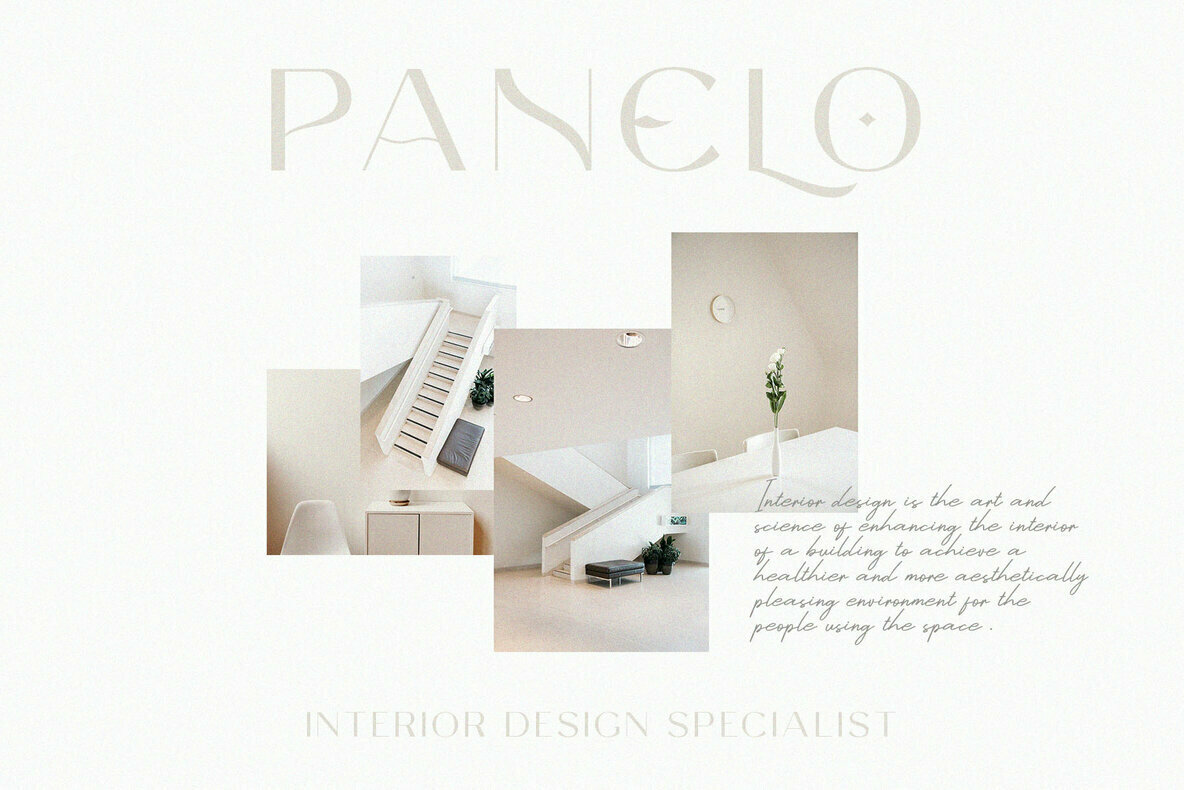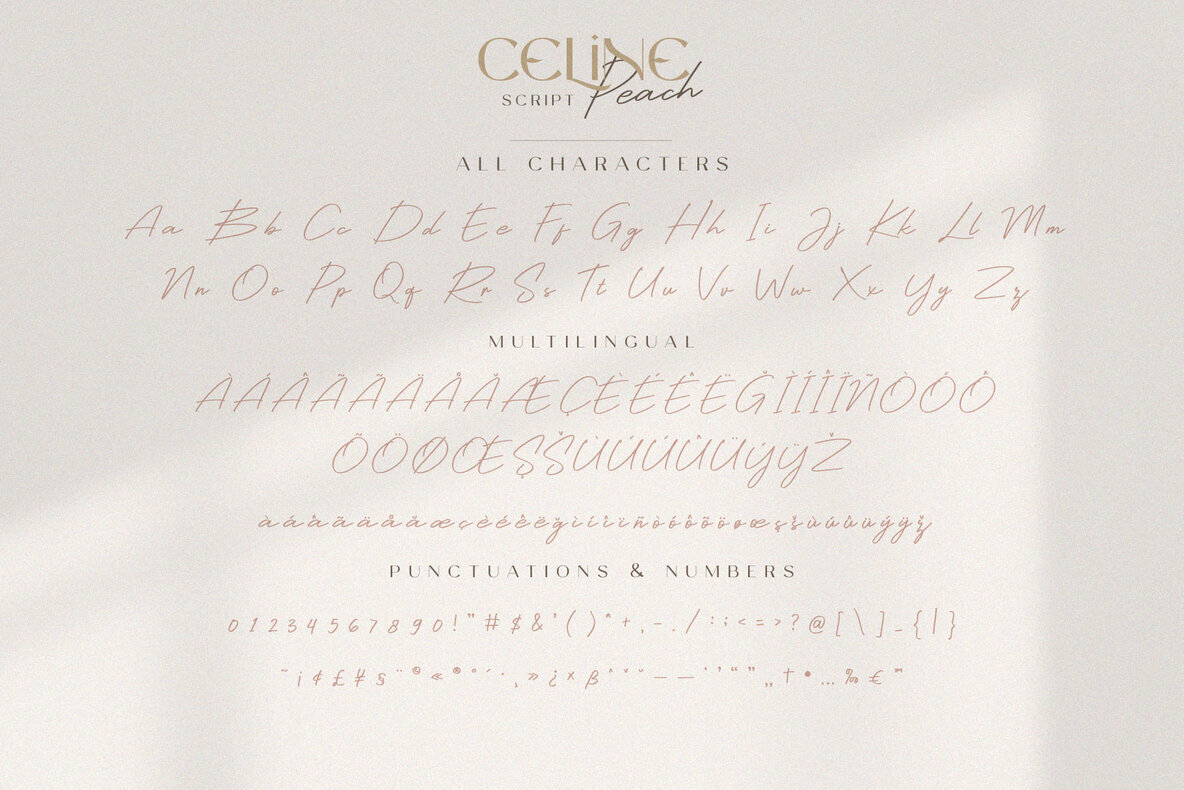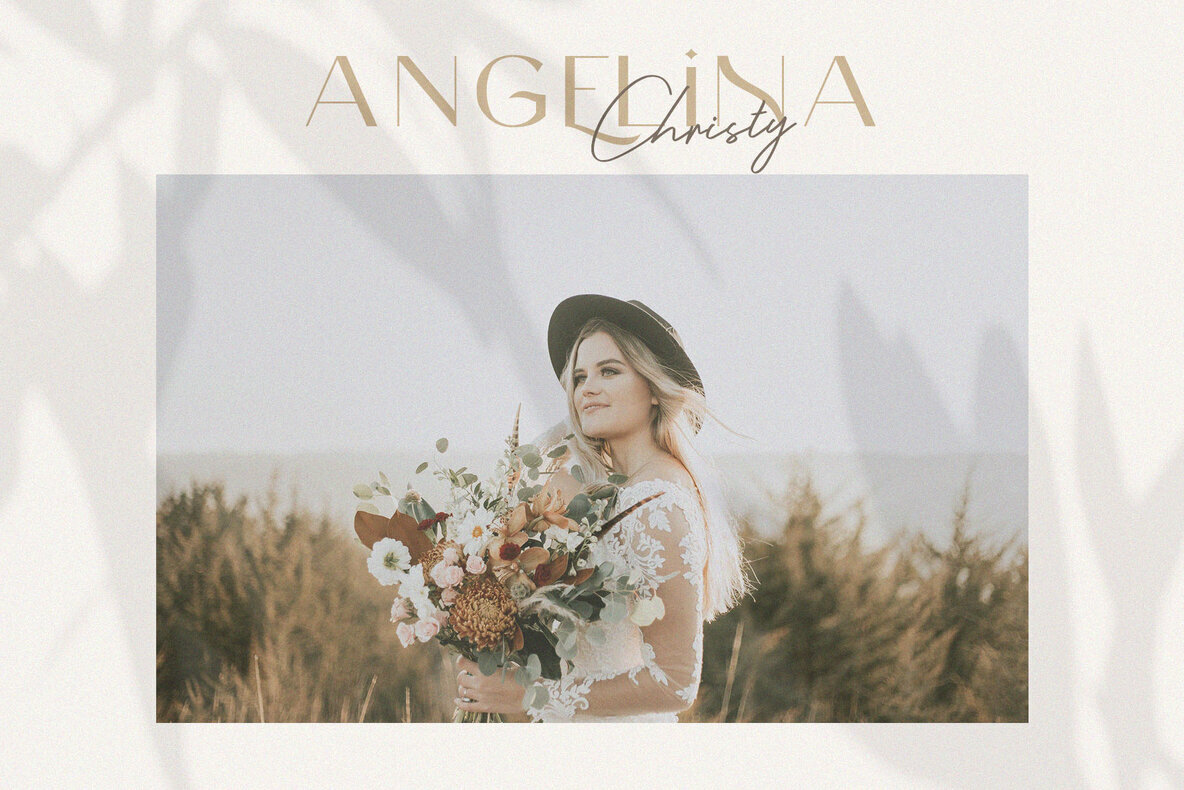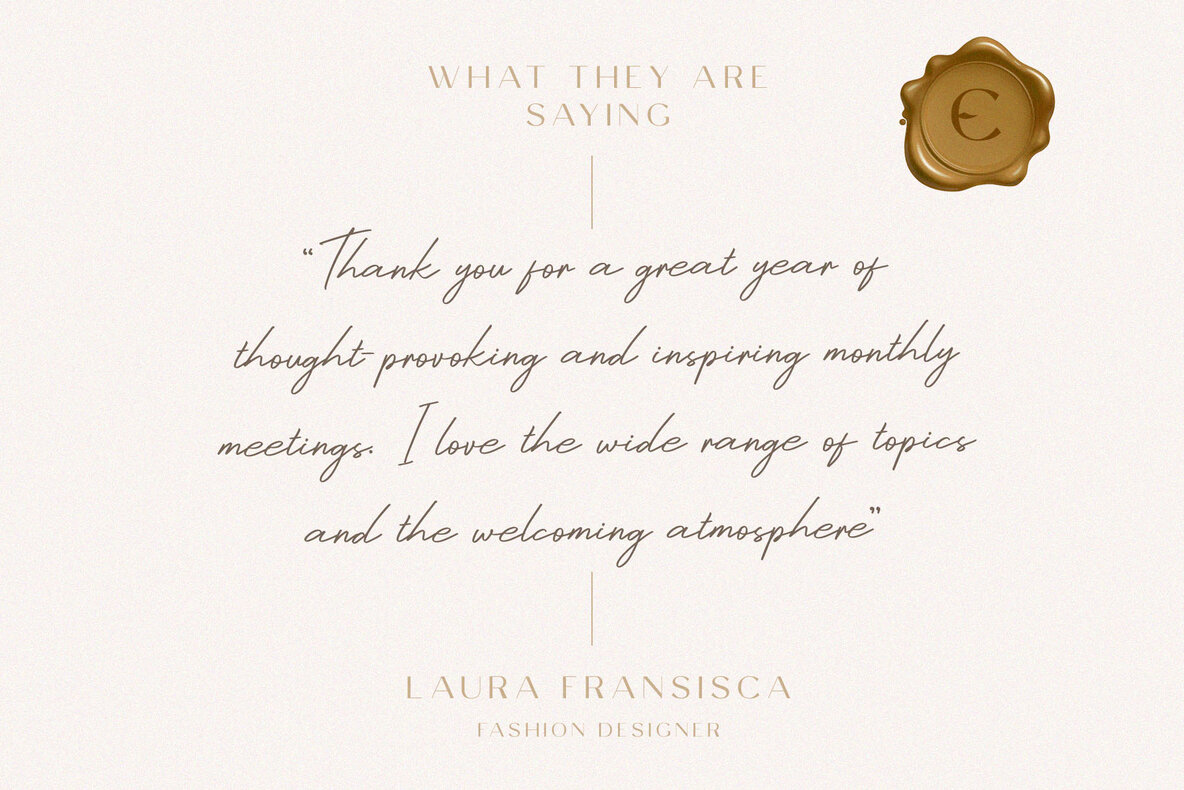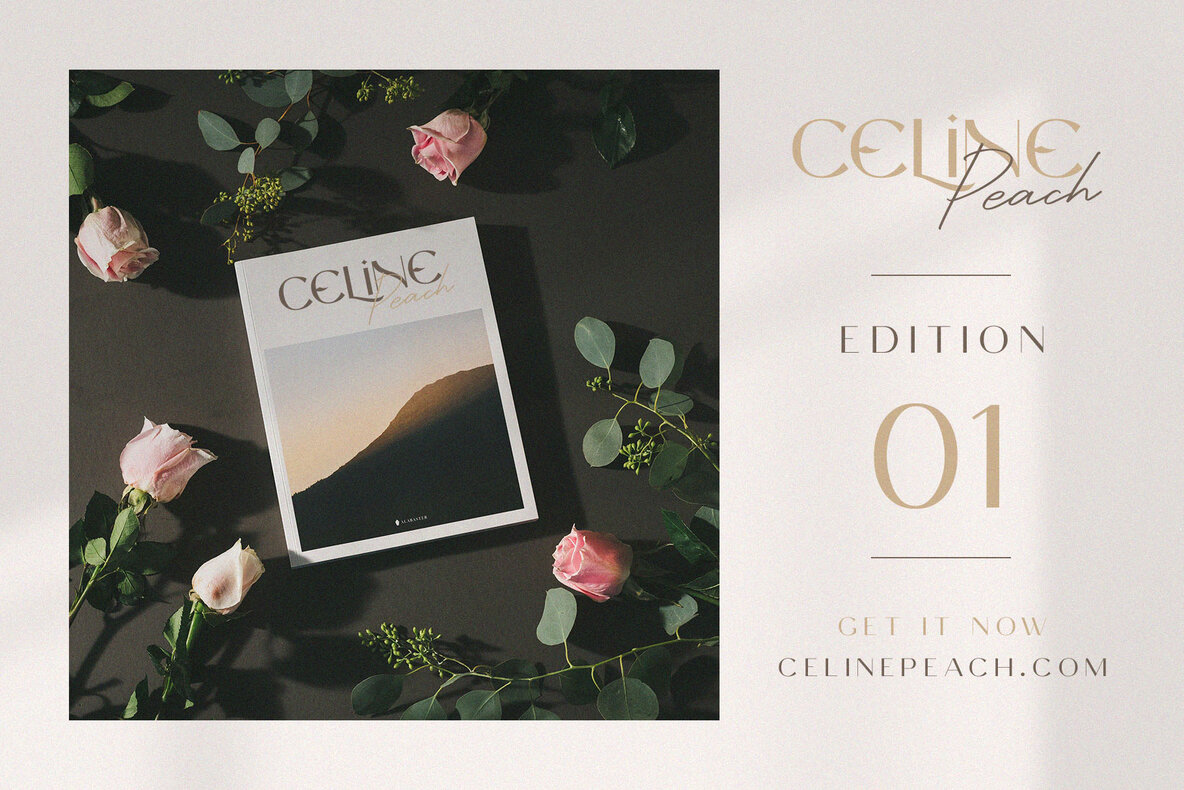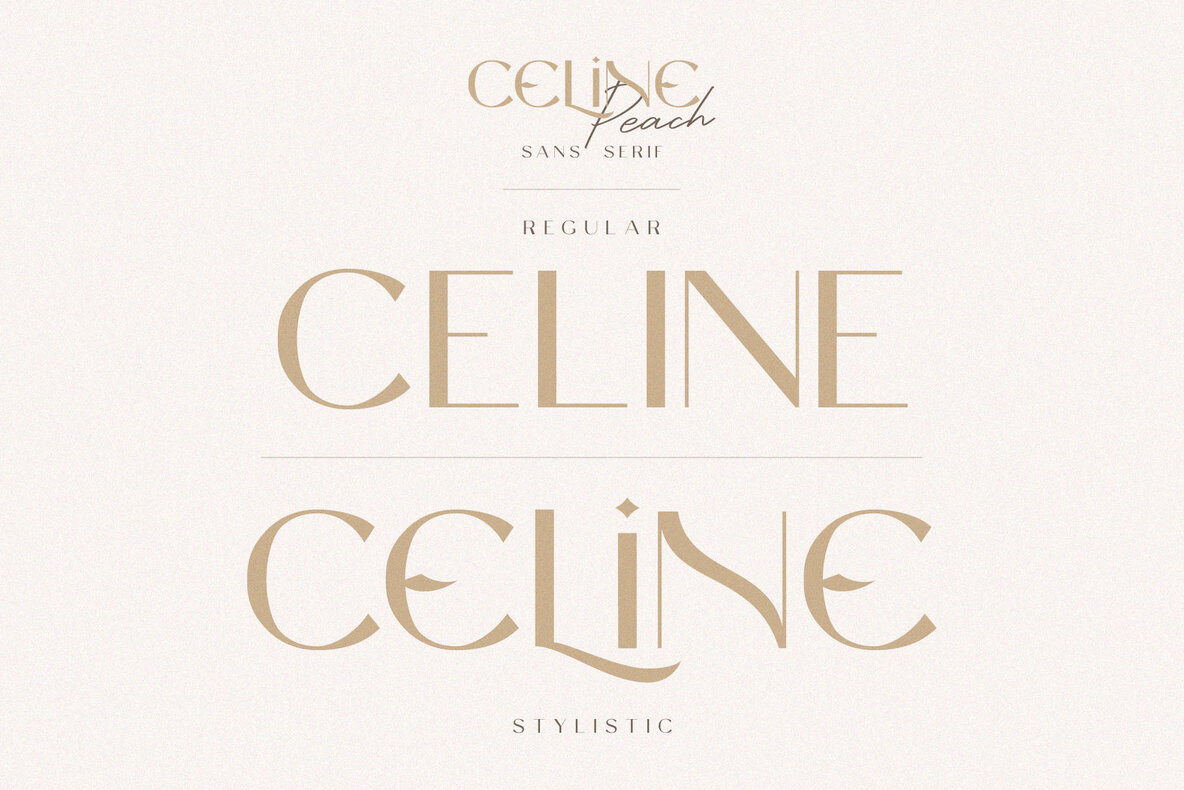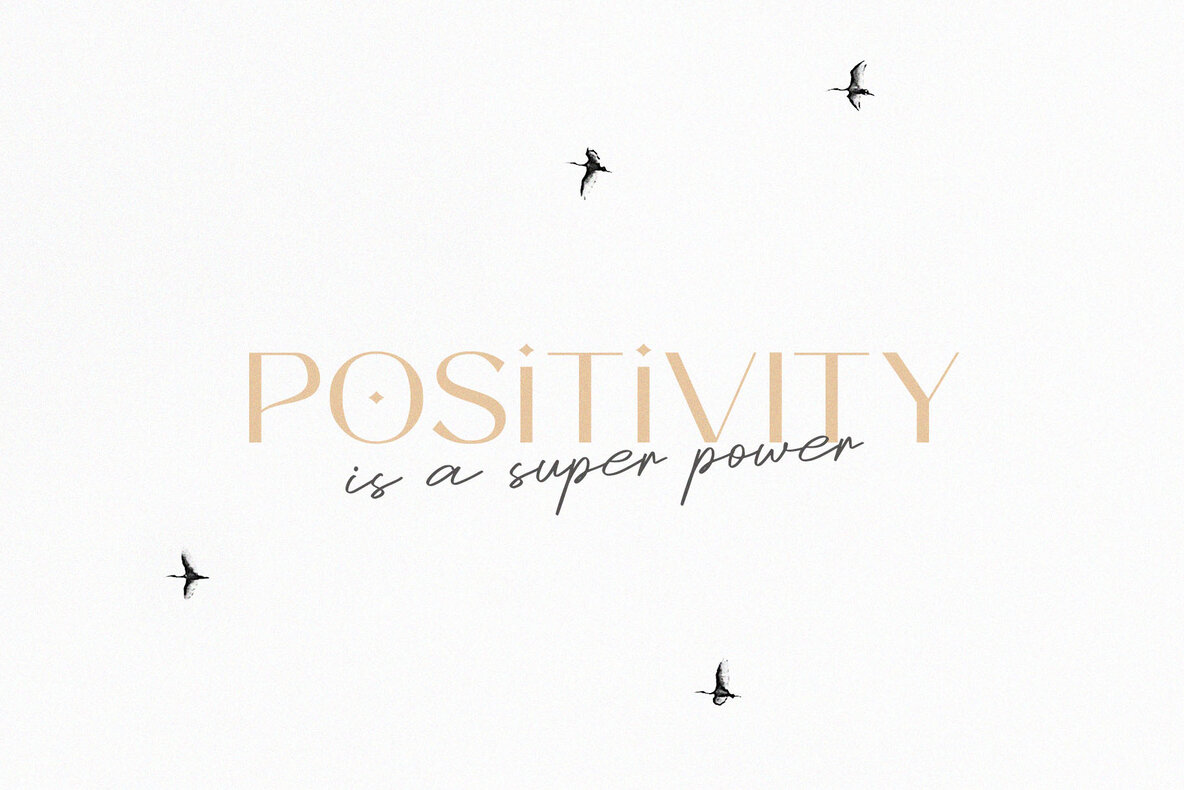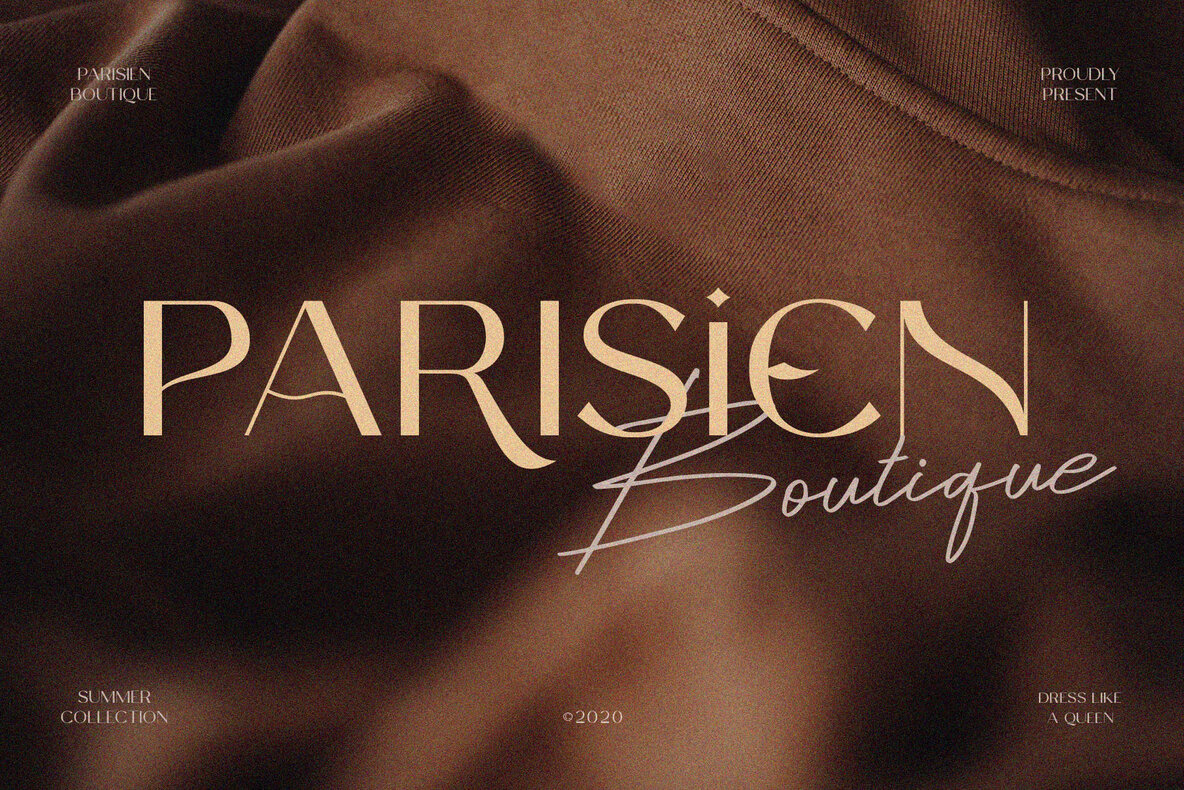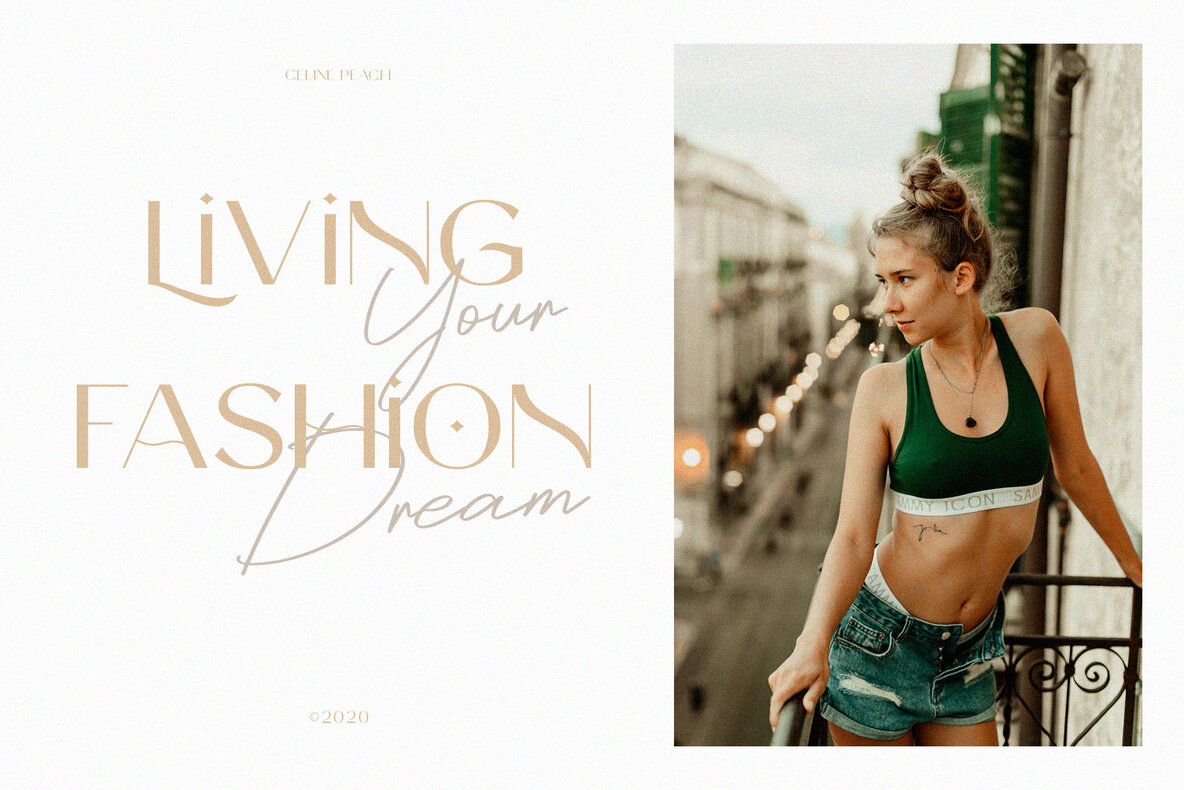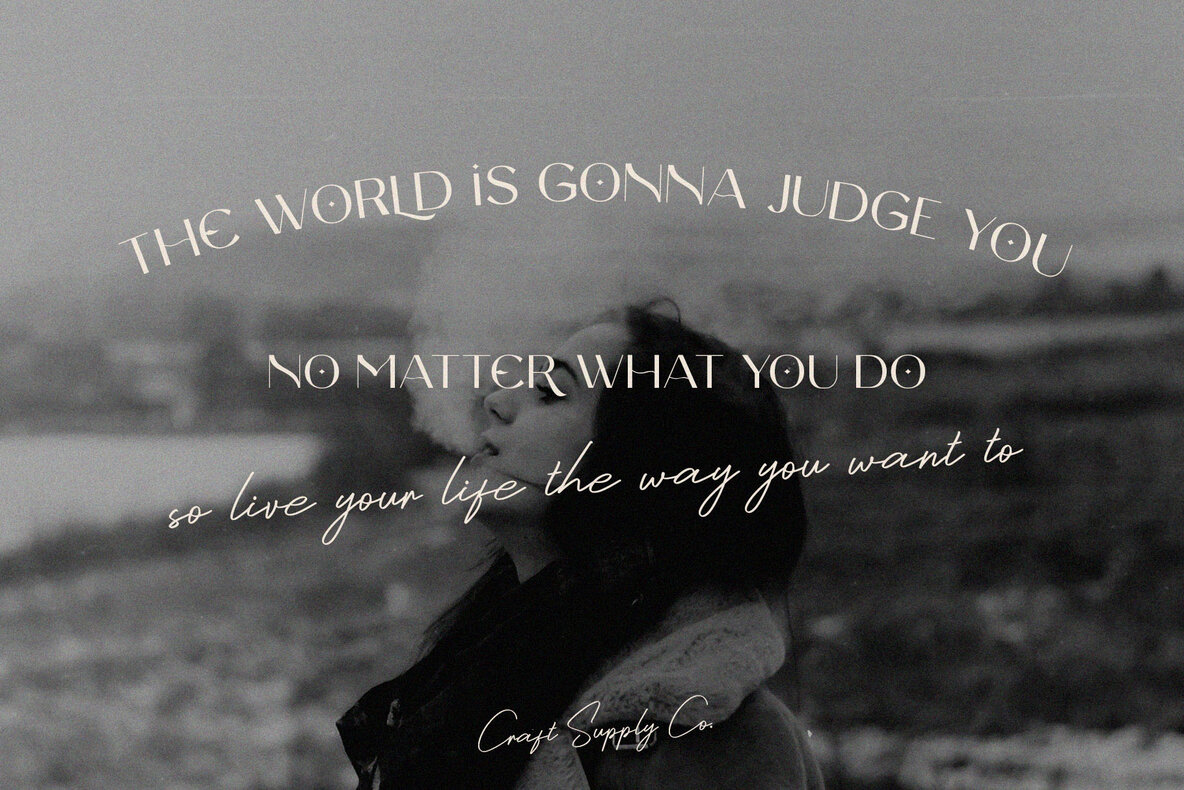
Celine Peach Font Duo
The Celine Peach Font Duo presents an elegant interplay between a sleek sans serif and a beautifully crafted handwritten script. Designed to capture the essence of sophisticated handwriting, this font duo is an impeccable choice for fashion, e-commerce, trendsetting blogs, or any business aiming to exude a chic and upscale image. This versatile font system is equally suitable for crafting distinctive logos, creating stunning greeting cards, or adding panache to quotes, posters, and branding materials. With its luxurious appeal, Celine Peach adapts seamlessly to diverse projects, including modern envelope lettering, DIY crafts, and stylistic book titles, ensuring a fresh and trendy presentation.Celine Peach Font Duo: Elegance Meets Versatility